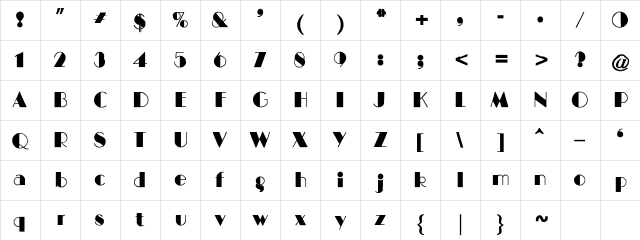
BIGCITY-Normal Regular
Design Context for BIGCITY-Normal
BIGCITY-Normal is a composed and adaptable typeface that performs quietly and consistently across a wide range of design contexts.
Pro Tip: Use BIGCITY-Normal in both headline and body roles to test its range before committing to a single application.